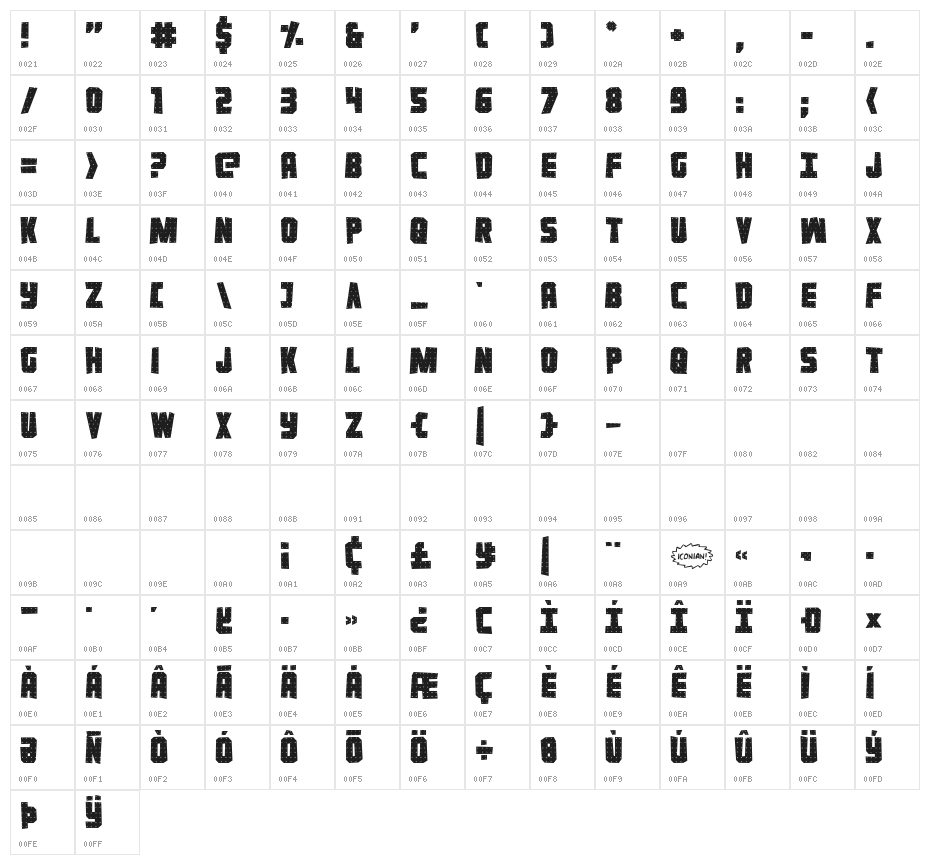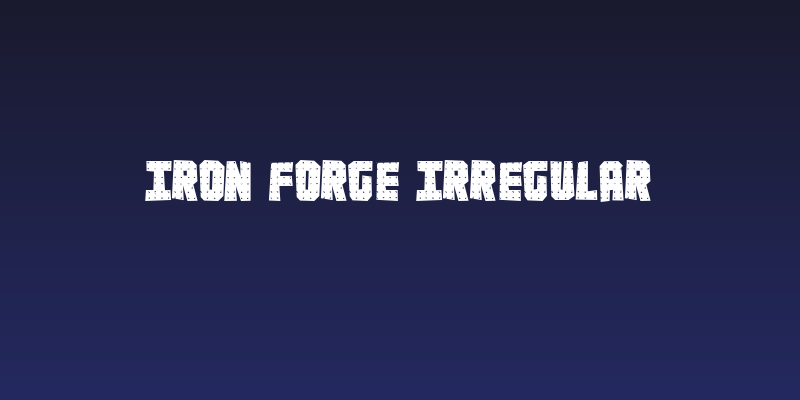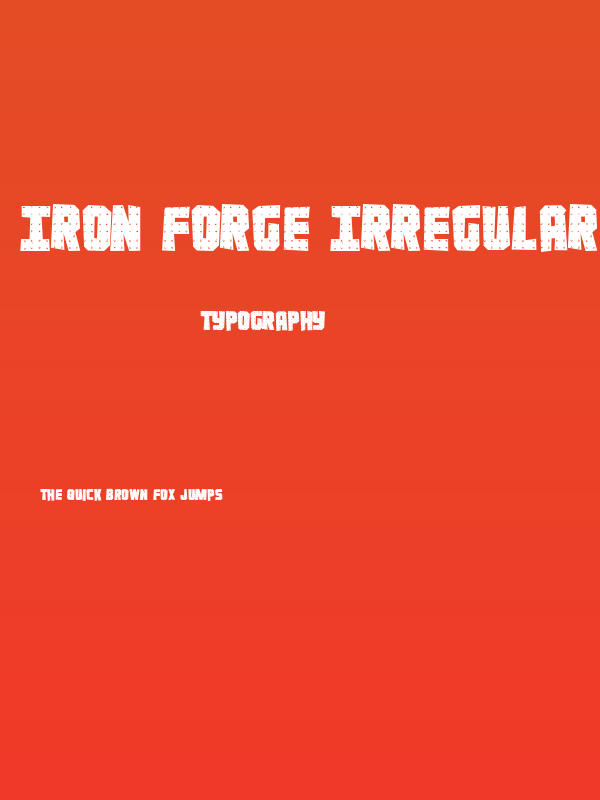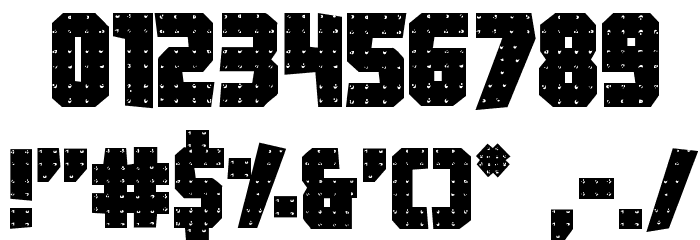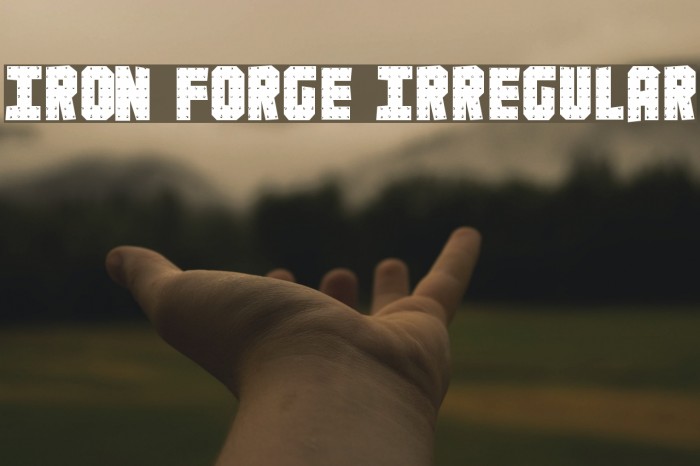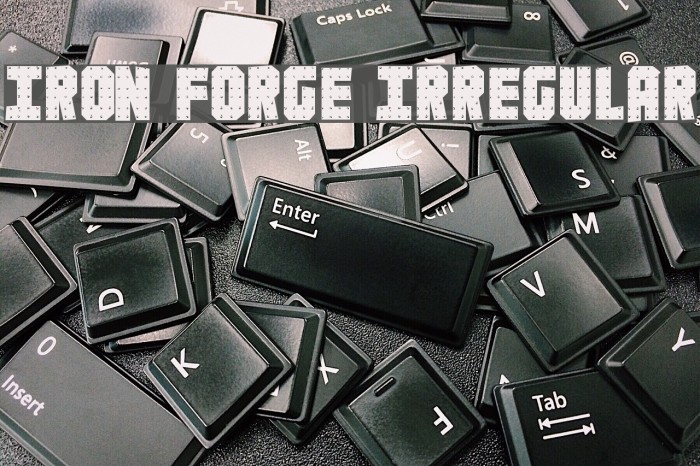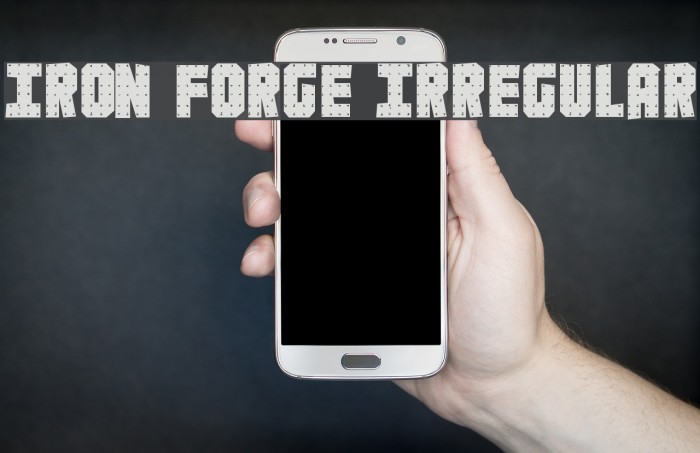
Iron Forge Irregular Font
Iron Forge Irregular Description
This font features a bold, industrial design with a rugged, textured appearance reminiscent of metalwork or machinery. The characters are blocky and geometric, with a distressed pattern that gives them a unique, worn look. The uppercase and lowercase letters maintain a consistent style, emphasizing strength and durability. The numbers and special characters follow the same design principles, making them suitable for attention-grabbing displays. The font's irregular texture adds a dynamic and edgy feel, perfect for projects that require a strong visual impact.
| Overall Style | Industrial, Rugged |
| Proposed Projects | Ideal for branding, posters, video game graphics, and industrial-themed designs. |